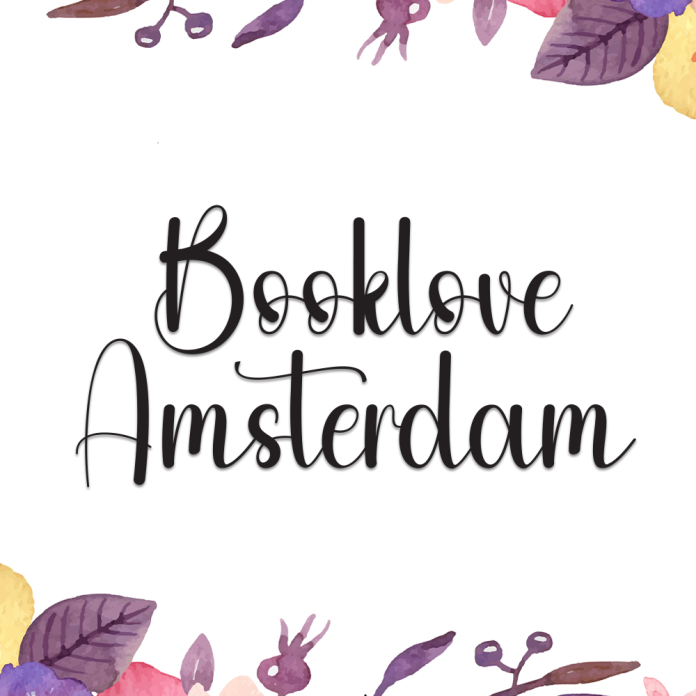
Booklove Amsterdam is a charming handwritten font that blends timeless romance with European flair. Its flowing strokes and elegant style evoke handwritten letters, perfect for wedding invitations, personal journals, love quotes, feminine branding, and more.
Let your words feel like handwritten poetry.
Elegant Handwriting Style
Uppercase & Lowercase Letters
Perfect for Weddings, Quotes & Feminine Designs
Numbers & Punctuation
Multilingual Support
Fall in love with your designs through the graceful script of Booklove Amsterdam.